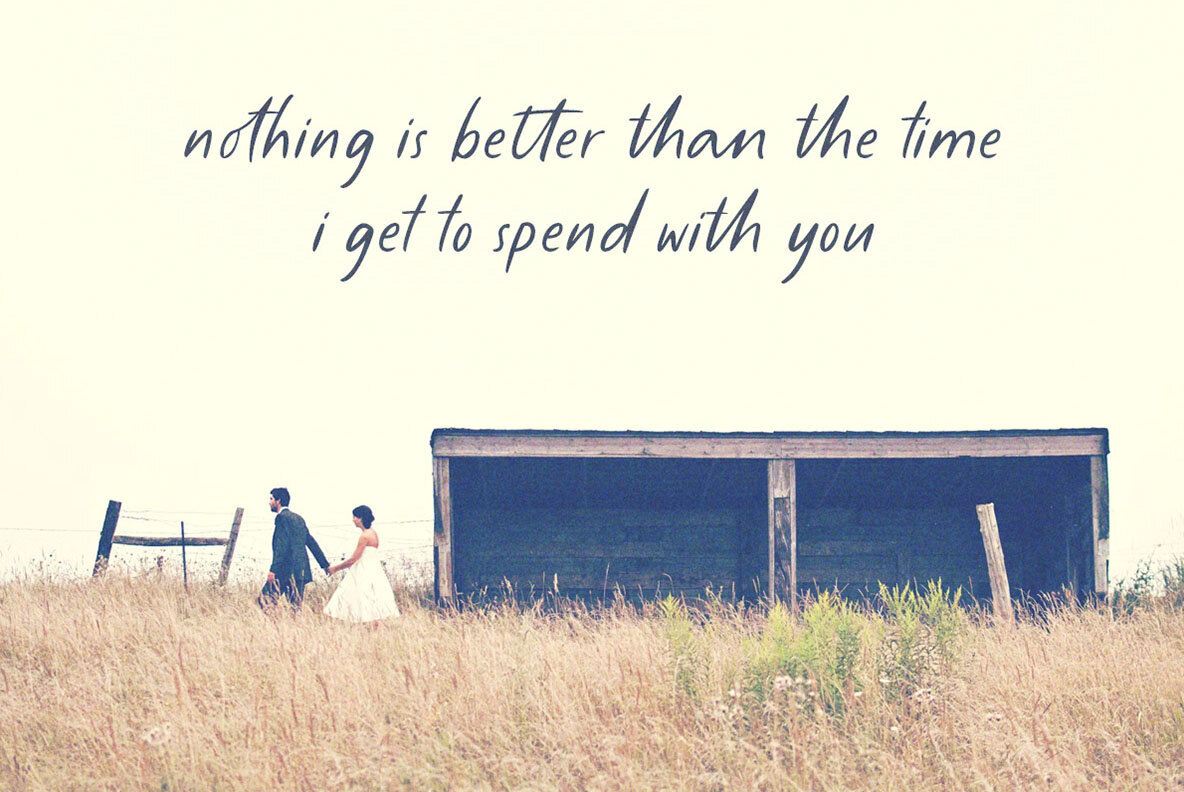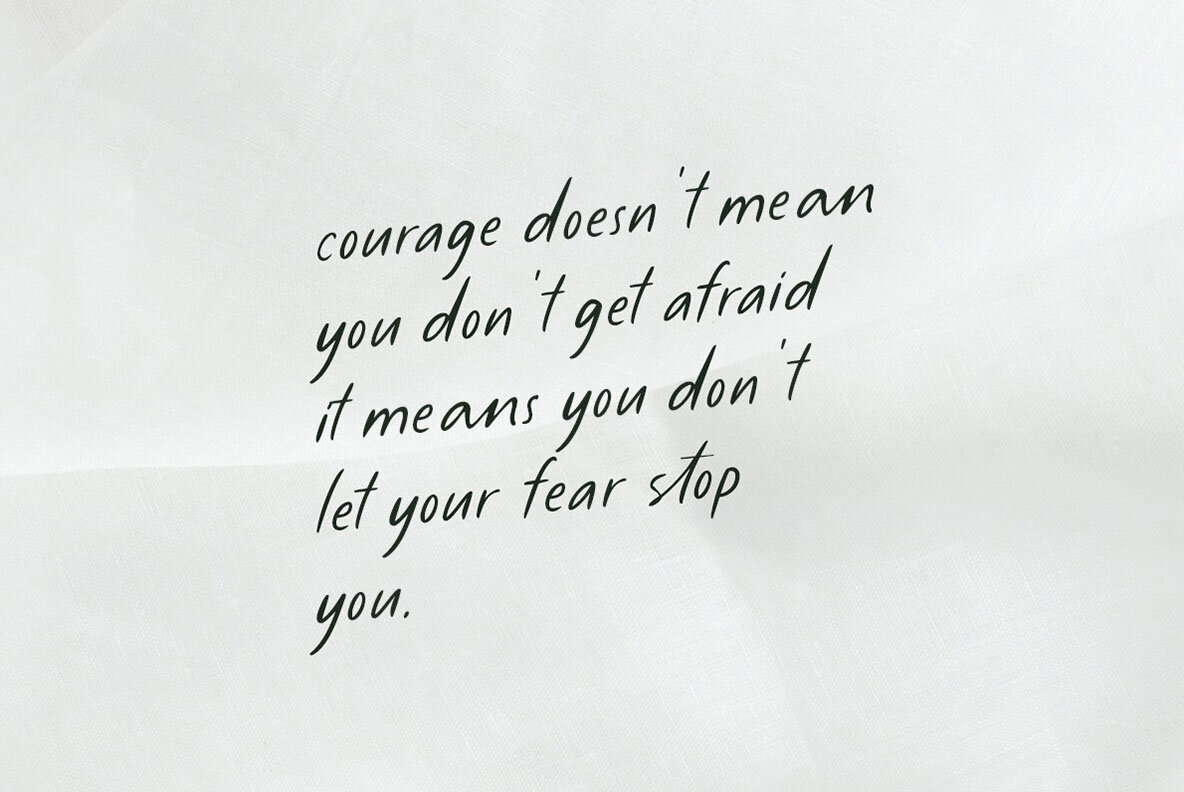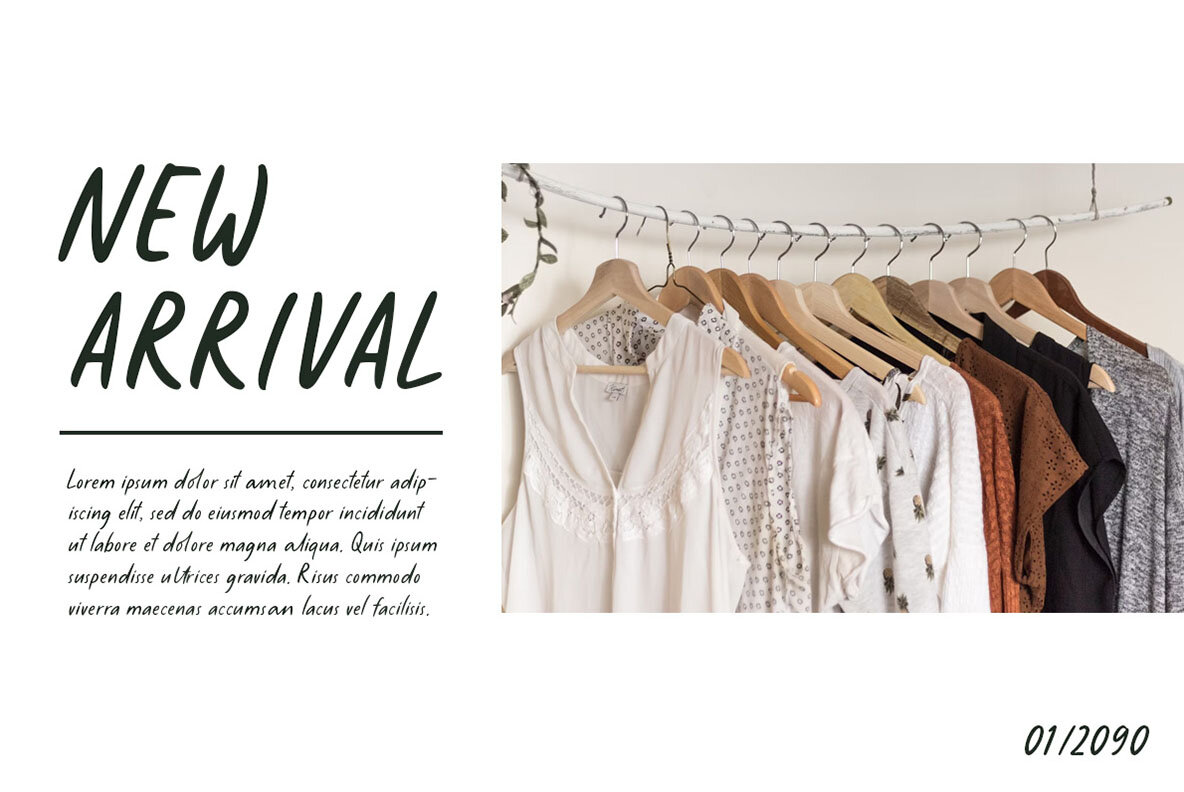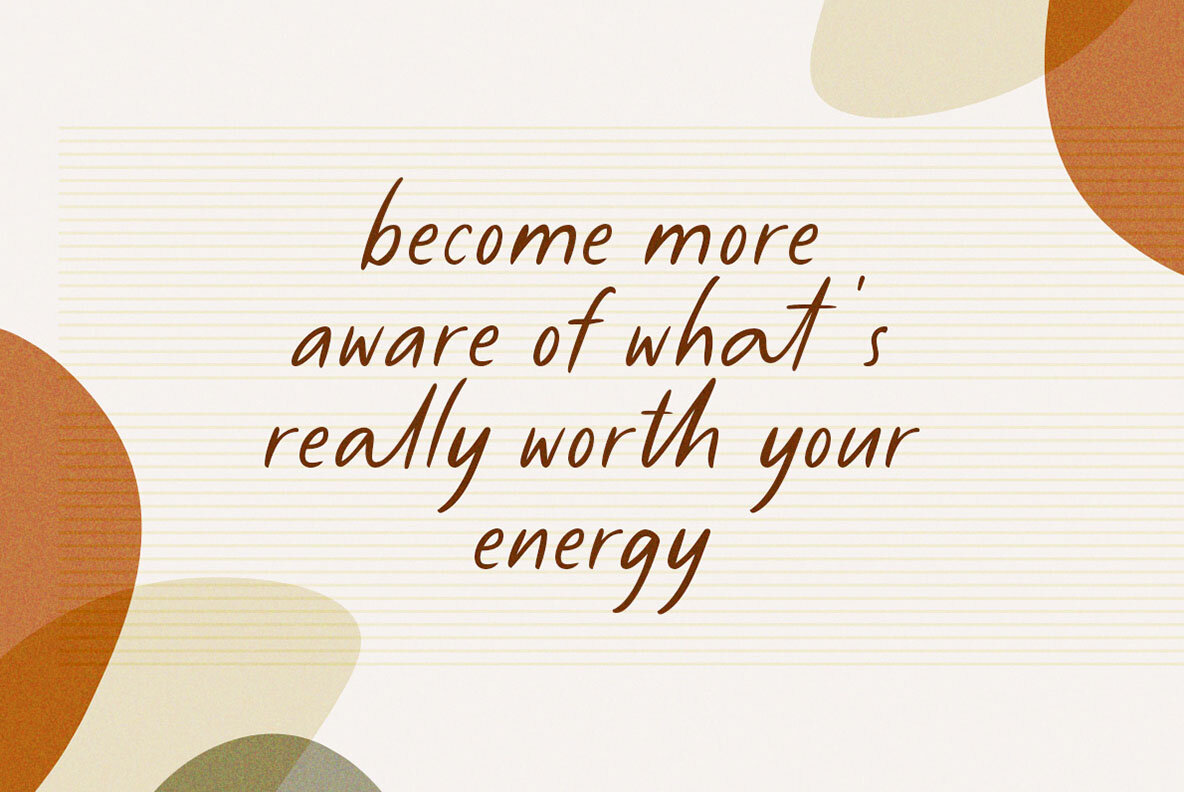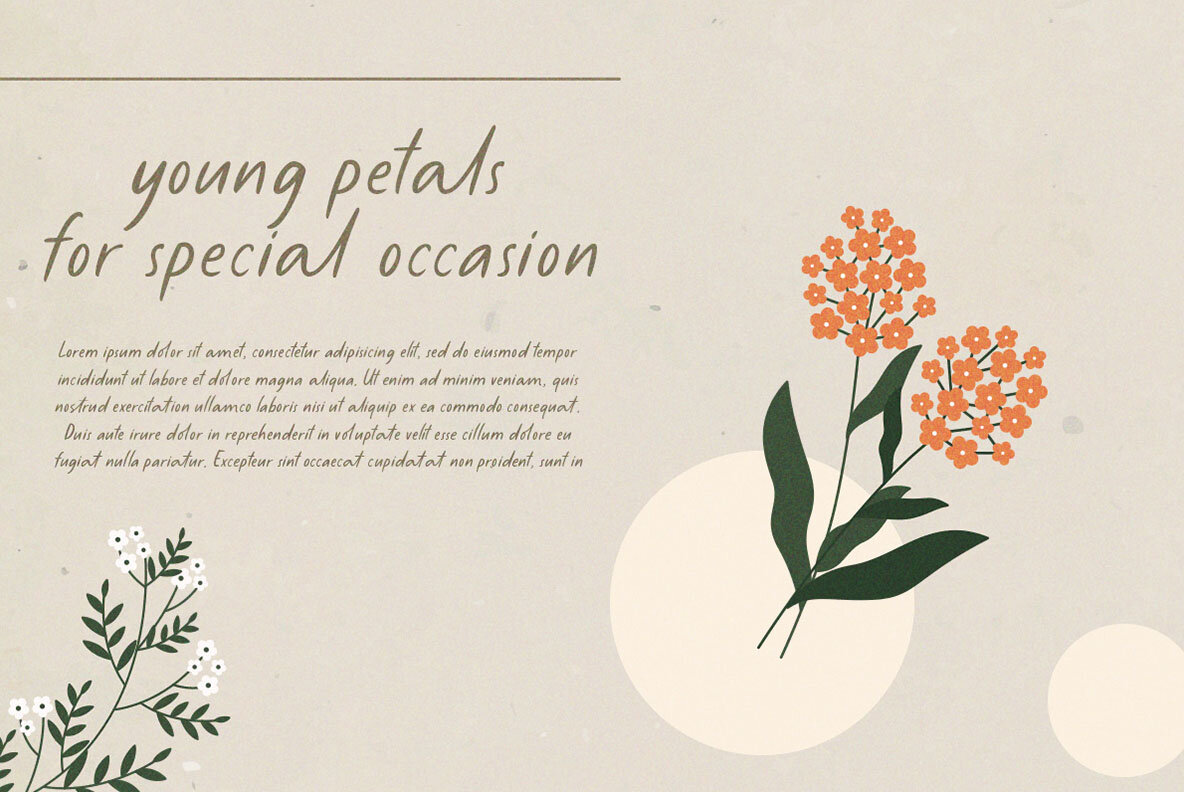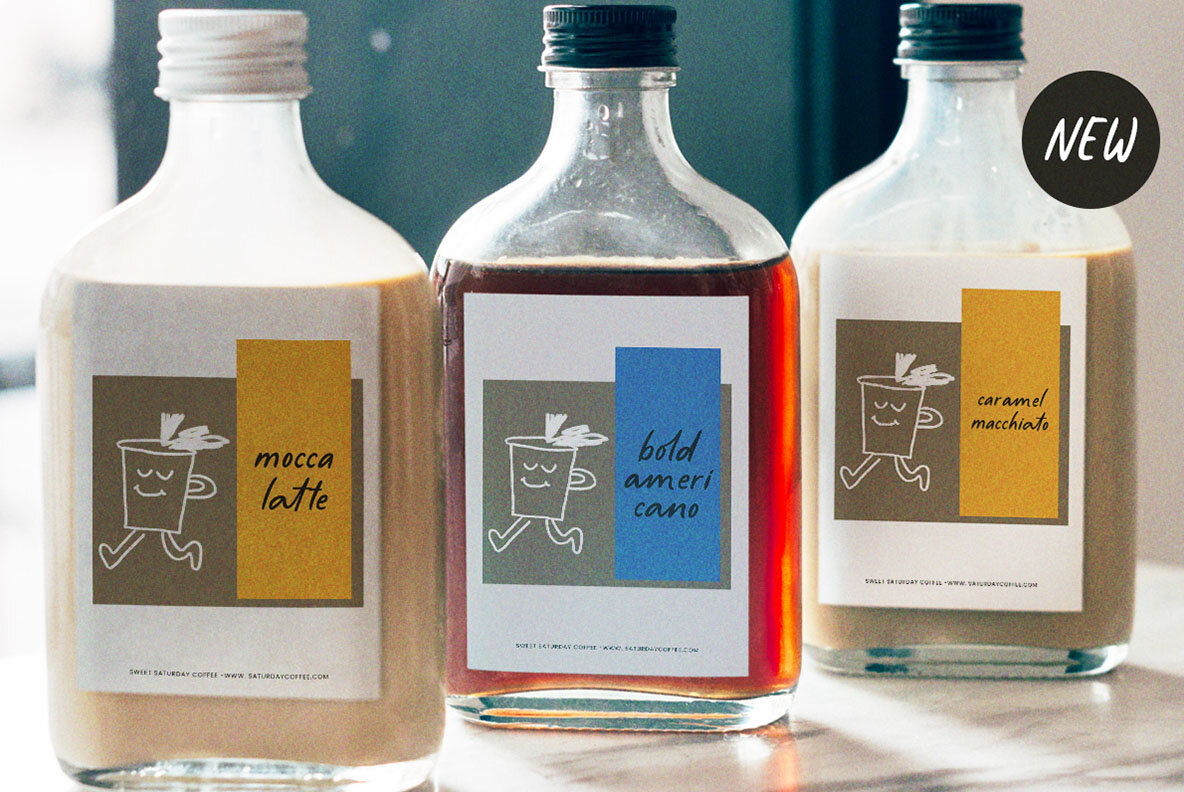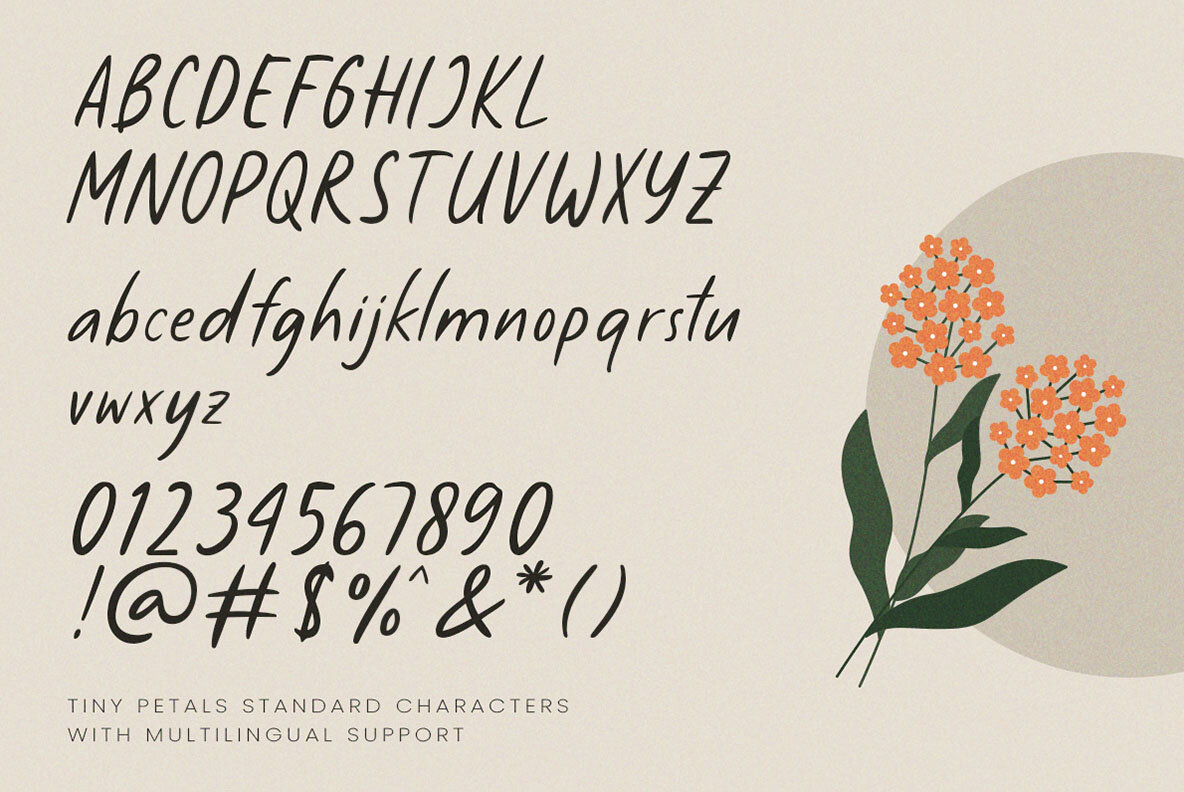
Tiny Petals Font
Tiny Petals offers a touch of authenticity and personal flair to your projects. This casual handwritten font is ideal for applications such as branding, logos, packaging, and invitations, providing a blend of organic and handwritten aesthetics that create a warm, personal touch. We recommend using a program that supports OpenType features and Glyphs panels, such as Adobe apps and Corel Draw, to access all Glyph variations effectively.Tiny Petals: A Natural Handwritten Font by Letterhend Studio
Features of Tiny Petals